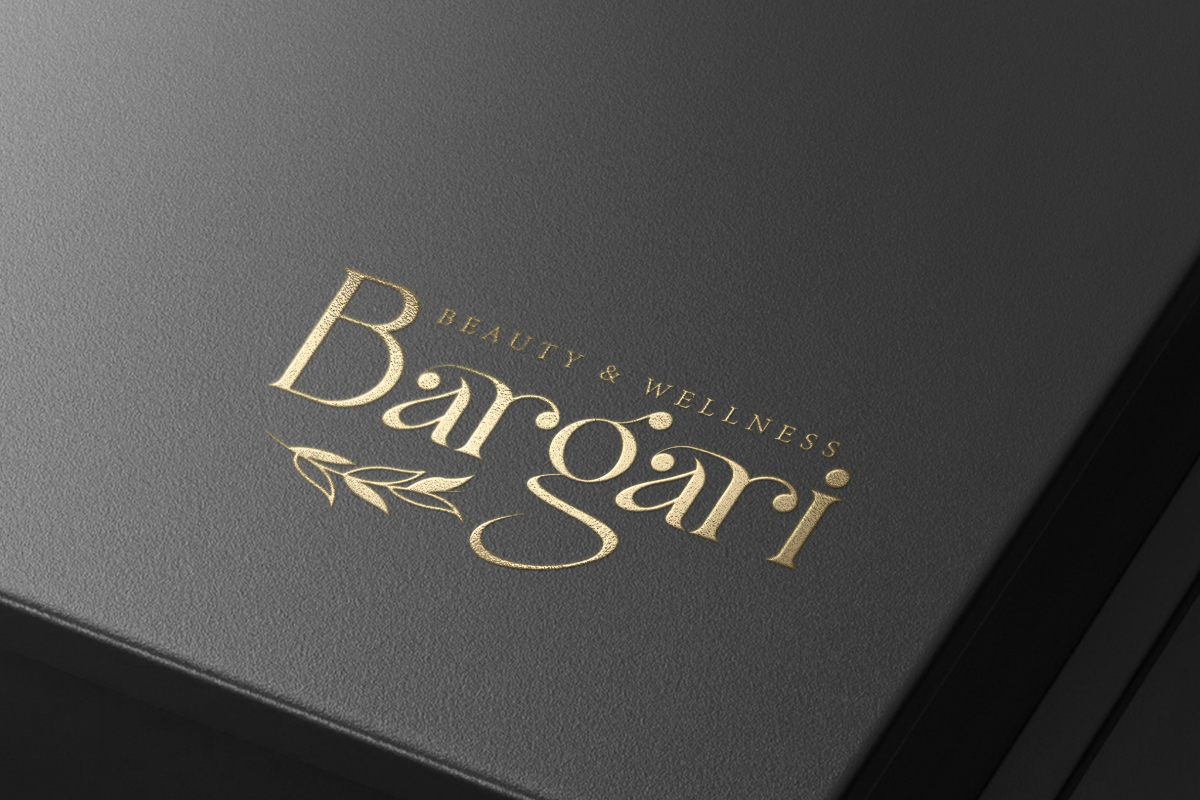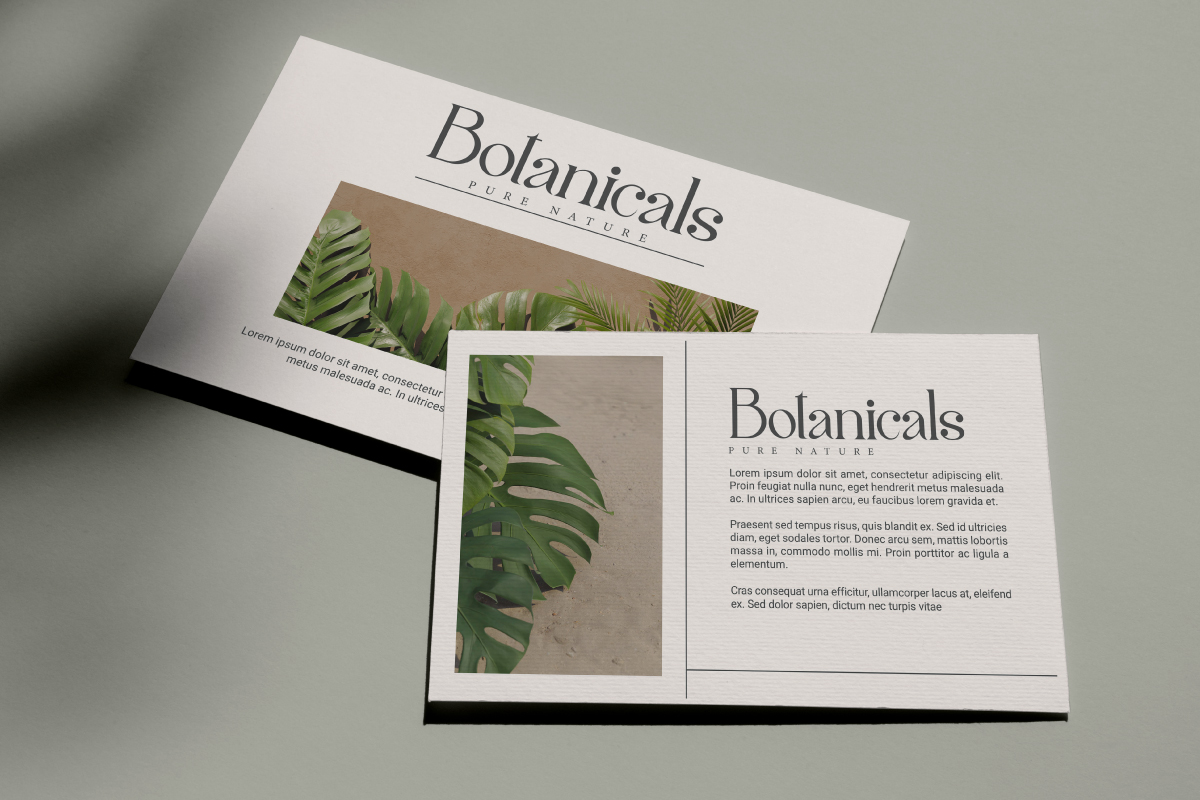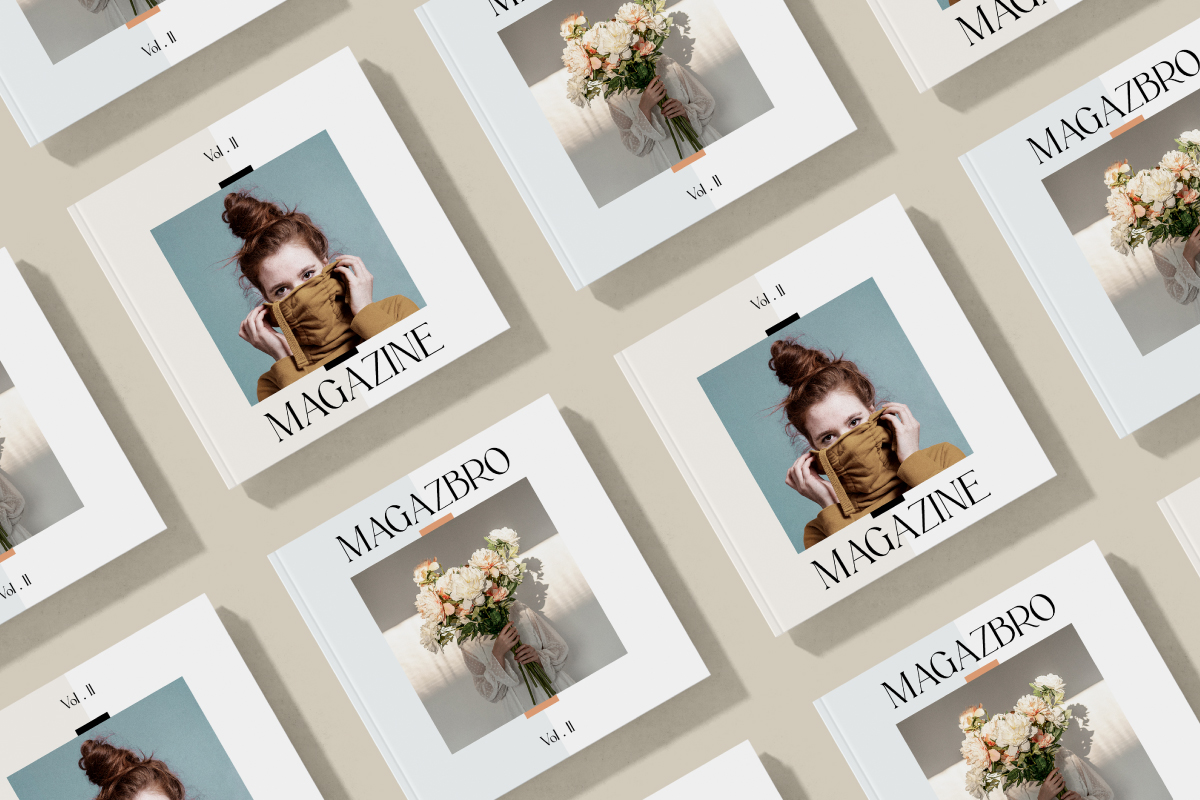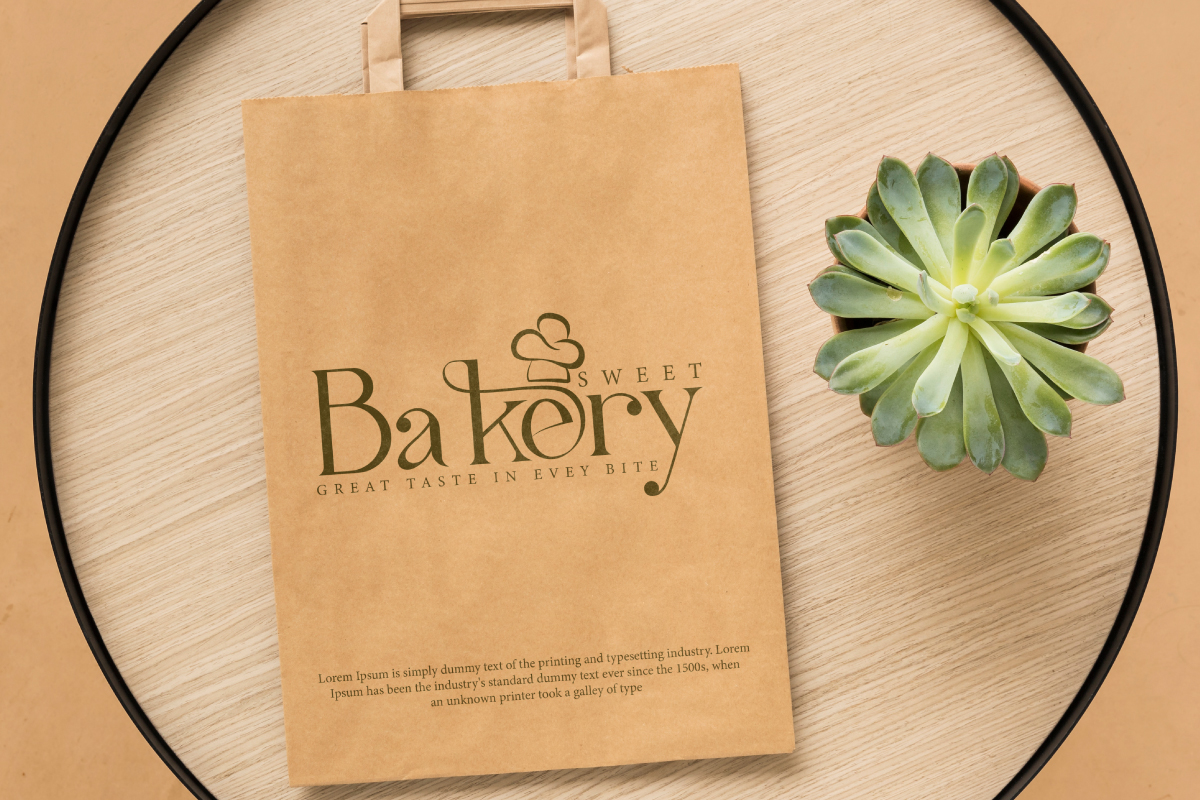
Marine Parade Font
Marine Parade Serif Font
It’s an elegant serif display font. This font deliver luxury and modern feels to make your project perfect. Carefully crafted to have an elegant look on every line and easy to read. This one should make your design instantly professional and stunning!
Marine Parade Font includes full set of Uppercase and Lowercase Basic Characters, Numerals and Punctuation, and ligature. This font will be suitable for many industries such as apparel, bakery and pastry, cosmetic, fashion, florist, café, homeware, jewelry, photography, publishing, printing, restaurant, wedding, writers, and many more.